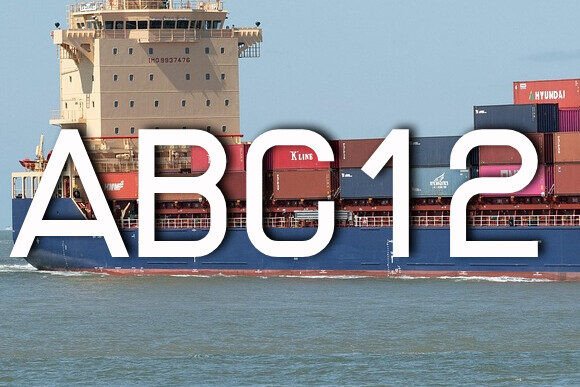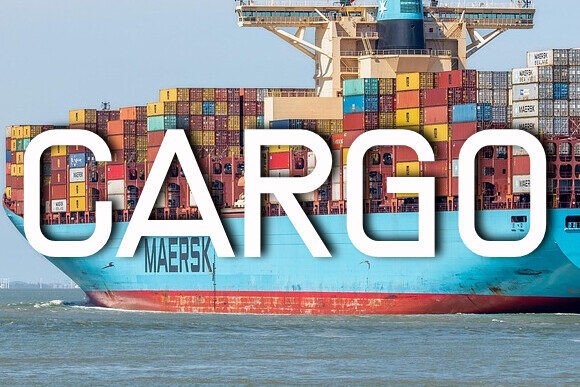
Introducing Gigantesque: The Ultimate Stylish Font Family for Your Creative Projects
Are you a designer, craftsperson, or DIY enthusiast looking for a font that can elevate your creative projects to the next level? Look no further than Gigantesque, a stylish font family designed to make a statement. With its unique blend of elegance and playfulness, Gigantesque is the perfect choice for a wide range of applications, from posters and flyers to t-shirts and more.
What is Gigantesque Font?
Gigantesque is a carefully crafted font family that boasts a distinctive, eye-catching style. Its letters are designed to be bold and expressive, making it ideal for use in headlines, titles, and other applications where you want to grab attention. Whether you’re working on a commercial project or a personal craft, Gigantesque is sure to make a lasting impression.
Key Features of Gigantesque Font
- Unique Style: Gigantesque’s distinctive design sets it apart from other font families, making it perfect for projects that require a touch of personality.
- High Versatility: This font family is incredibly versatile, and can be used in a wide range of applications, from posters and flyers to t-shirts and more.
- Ease of Use: Gigantesque is easy to read and works well in both digital and print formats, making it a great choice for designers and crafters alike.
- Customizable: With Gigantesque, you can experiment with different sizes, colors, and styles to create a unique look that suits your project.
Why Choose Gigantesque Font?
So why should you choose Gigantesque for your creative projects? Here are just a few compelling reasons:
- Stand Out: With Gigantesque, you can create projects that stand out from the crowd and grab attention.
- Professional Look: This font family has a professional, polished look that’s perfect for commercial projects.
- Easy to Pair: Gigantesque pairs well with a wide range of other fonts, making it easy to create a cohesive look.
- Constantly Updated: The Gigantesque font family is regularly updated with new features and improvements, ensuring that you always have access to the latest and greatest.
How to Use Gigantesque Font in Your Projects
Using Gigantesque in your projects is easy. Here are a few tips to get you started:
- Pair with Other Fonts: Experiment with pairing Gigantesque with other fonts to create a unique look.
- Experiment with Sizes: Try using Gigantesque in different sizes to create visual interest.
- Play with Color: Don’t be afraid to experiment with different colors to find the perfect match for your project.
Gigantesque is a font family that’s perfect for designers and crafters alike. Whether you’re working on a commercial project or a personal craft, this font is sure to inspire your creativity. Here are just a few ways you can use Gigantesque:
- Posters: Use Gigantesque to create eye-catching posters that grab attention.
- Flyers: This font family is perfect for creating flyers that stand out from the crowd.
- T-Shirts: Gigantesque is a great choice for designing custom t-shirts that make a statement.
In conclusion, Gigantesque is a stylish font family that’s perfect for designers, crafters, and DIY enthusiasts. With its unique style, high versatility, and ease of use, Gigantesque is sure to become a go-to font for creative projects. So why wait? Download Gigantesque today and start creating projects that stand out from the crowd!